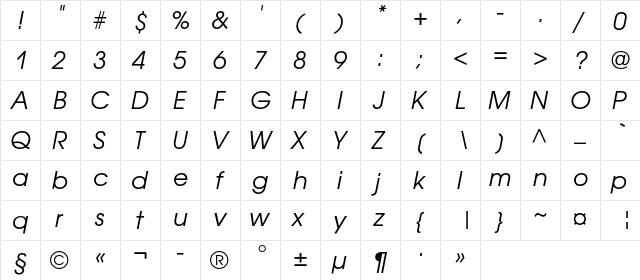
AvantGardeGothicC Italic Font Preview
AvantGardeGothicC Italic
Design Context for AvantGardeGothicC Typeface
AvantGardeGothicC takes a clean, functional approach — its unadorned letterforms prioritise legibility and work reliably across screen and print environments. The slanted form adds forward momentum and visual energy.
Font Pairing: Works well alongside a characterful serif or display font that can carry the expressive load while AvantGardeGothicC handles the functional copy.
Pro Tip: Use AvantGardeGothicC for UI labels, navigation, and short-form body copy where clean legibility is the priority.